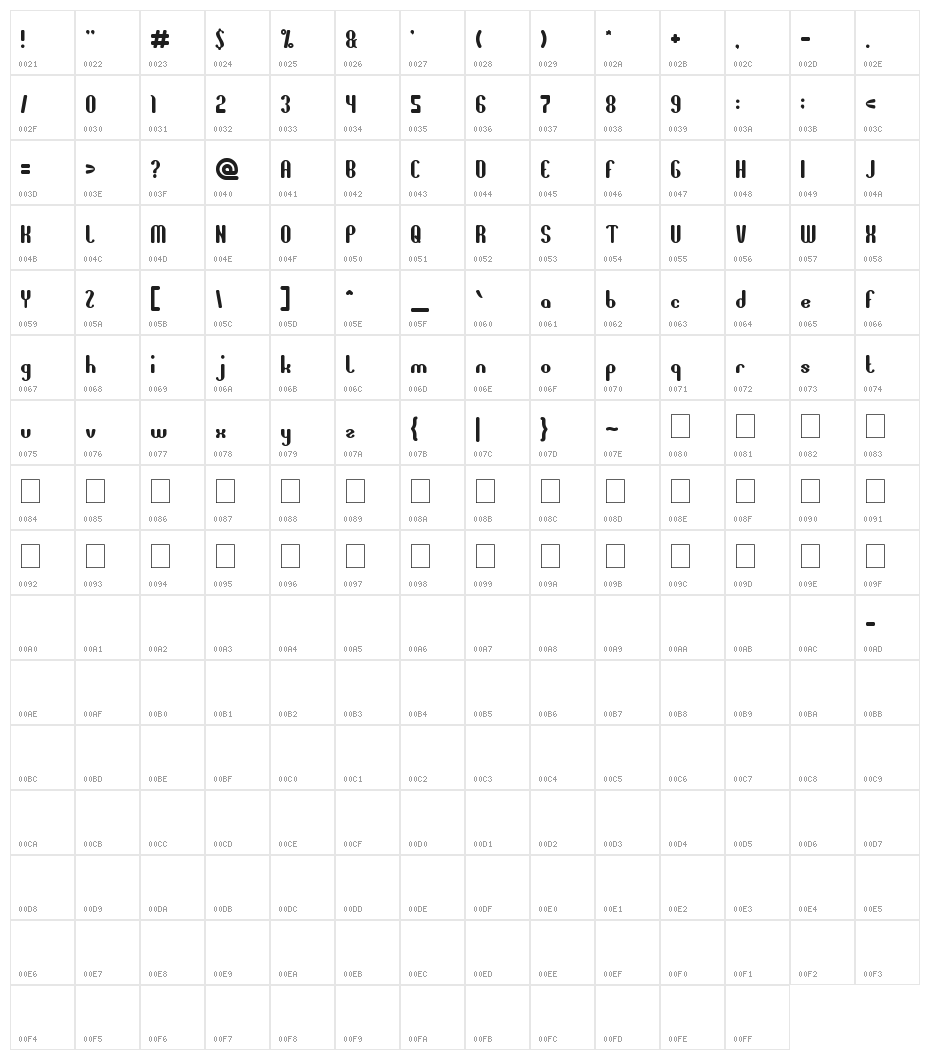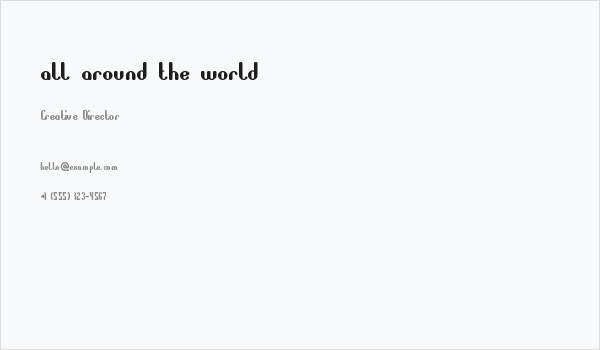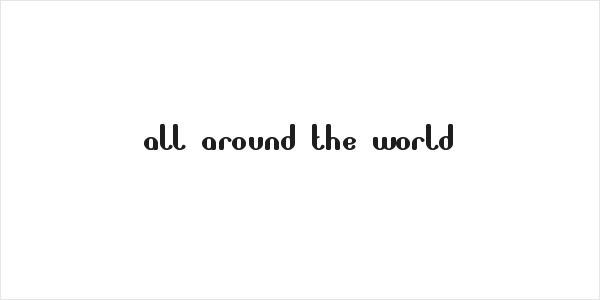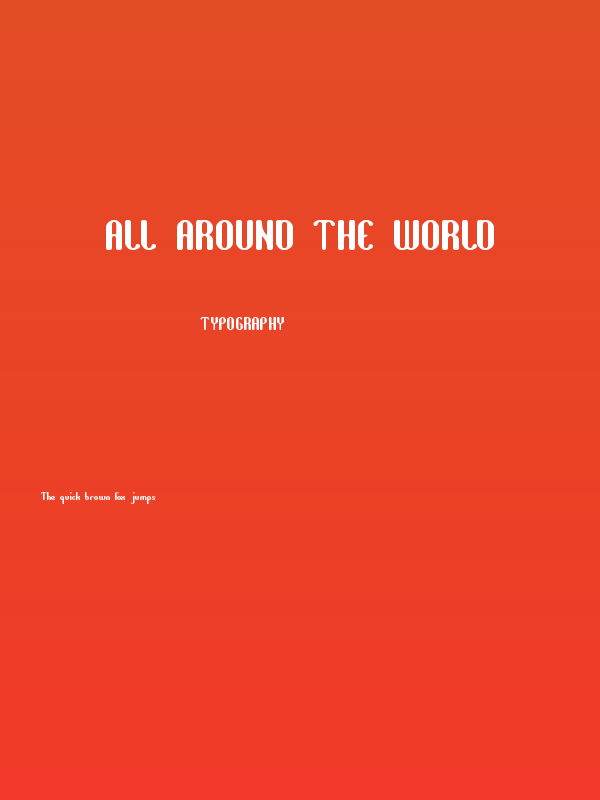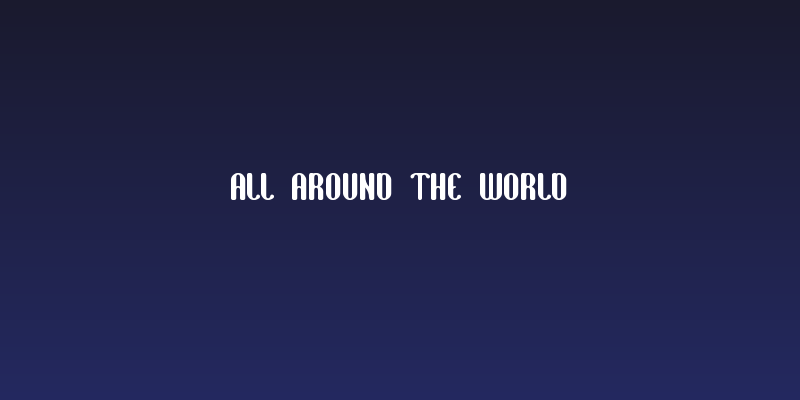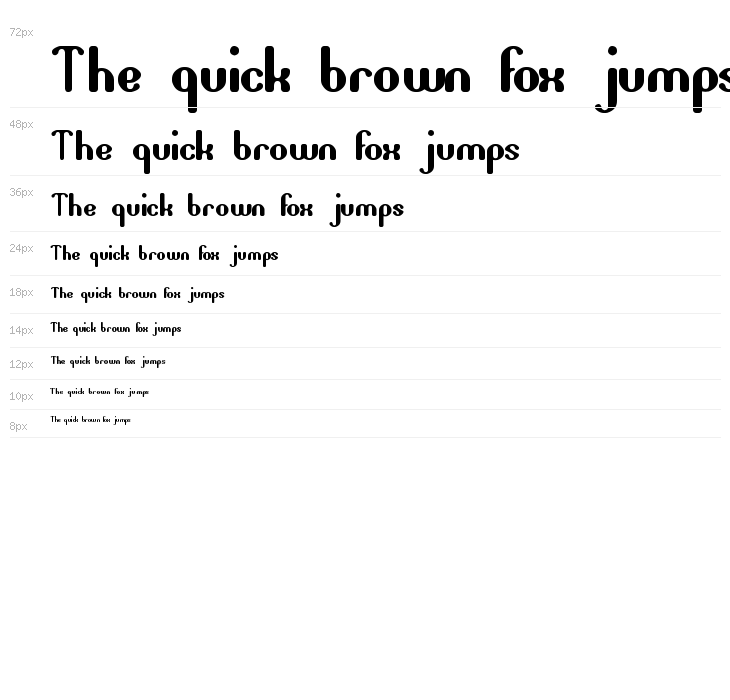
all around the world Font
all around the world Description
This font features a playful and rounded style, characterized by its bold and smooth curves. The letters have a consistent thickness, giving it a cohesive and unified appearance. The uppercase letters are tall and slightly condensed, while the lowercase letters maintain a similar width, creating a harmonious balance. The numbers follow the same rounded aesthetic, ensuring readability and visual appeal. Special characters are designed with the same bold and rounded approach, making them stand out while remaining consistent with the overall style. This font is ideal for projects that require a friendly and approachable look.
| Proposed Projects | Ideal for children's books, playful branding, posters, and social media graphics. |